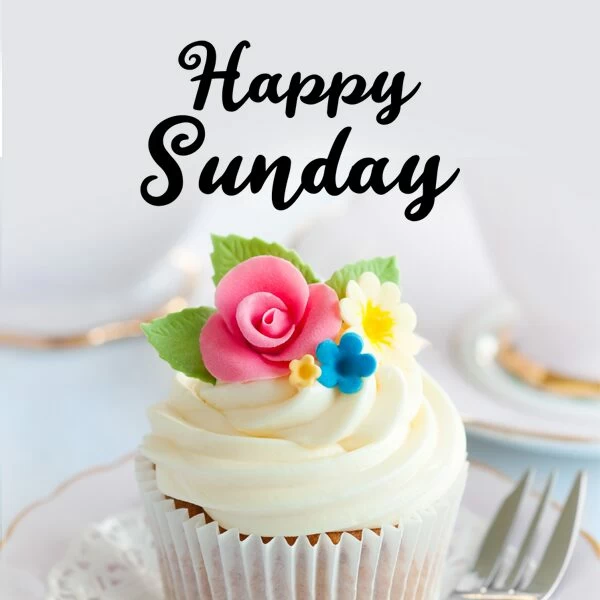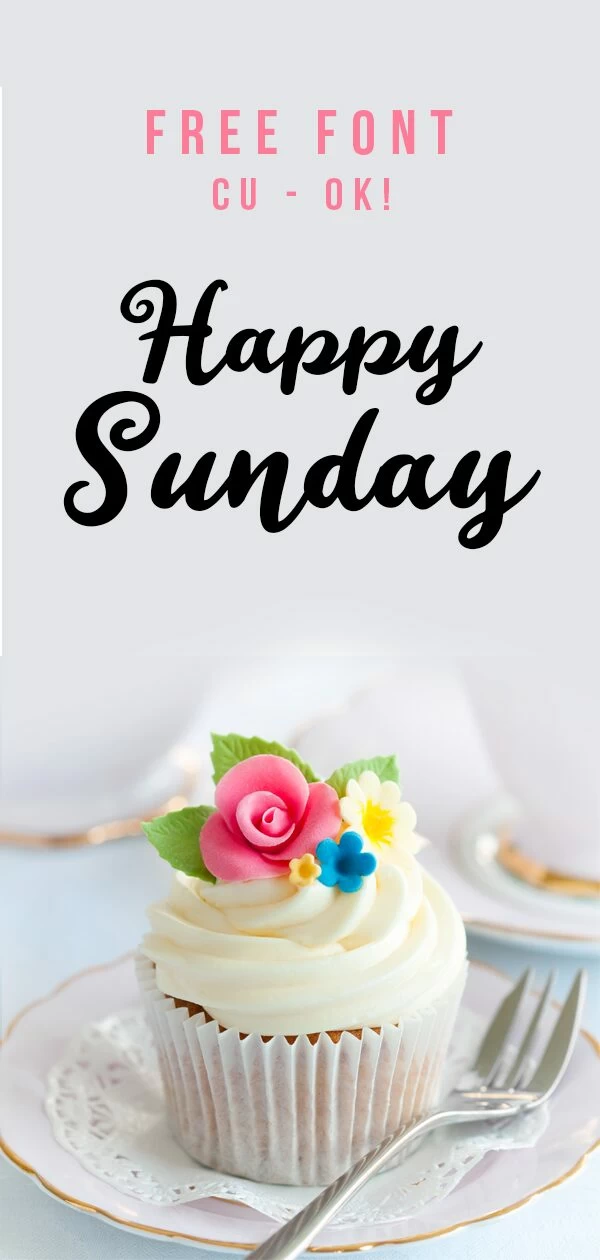
Free Font Happy Sunday:
This free font may be called
Happy Sunday but I say
Happy Anyday with this cutie!
I think you will have lots of fun creating pretty and festive designs with this font. The “thickness” of this script is perfect for all us cutting machine lovers out there! I also love the fact that even though it is a script font it is very legible- always a plus when it comes to script fonts!Â